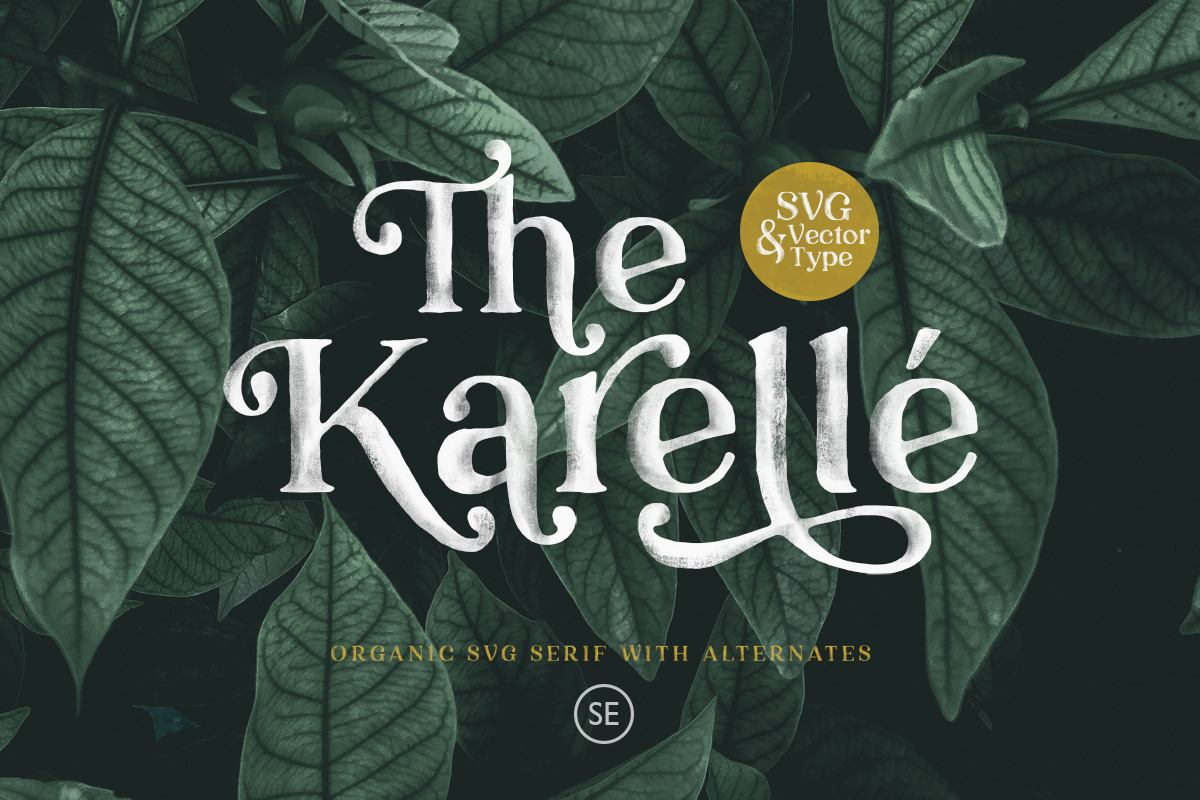
Karelle SVG - An Organic Serif Free Download
Karelle SVG – An Organic Serif Free Download
Karelle SVG – An Organic Serif Free Download is a beautifully textured serif typeface that blends natural hand-crafted charm with editorial elegance. Using high-resolution SVG font technology, Karelle captures the nuanced details of ink and brush for a truly organic and artistic appearance. It’s ideal for wedding designs, packaging, branding, magazine titles, and social media posts where authenticity and beauty matter.
This font offers rich texture and depth that traditional vector fonts can’t match. Karelle SVG – An Organic Serif Free Download also includes standard vector versions for broader compatibility, along with alternates and ligatures to enhance your creative flexibility.